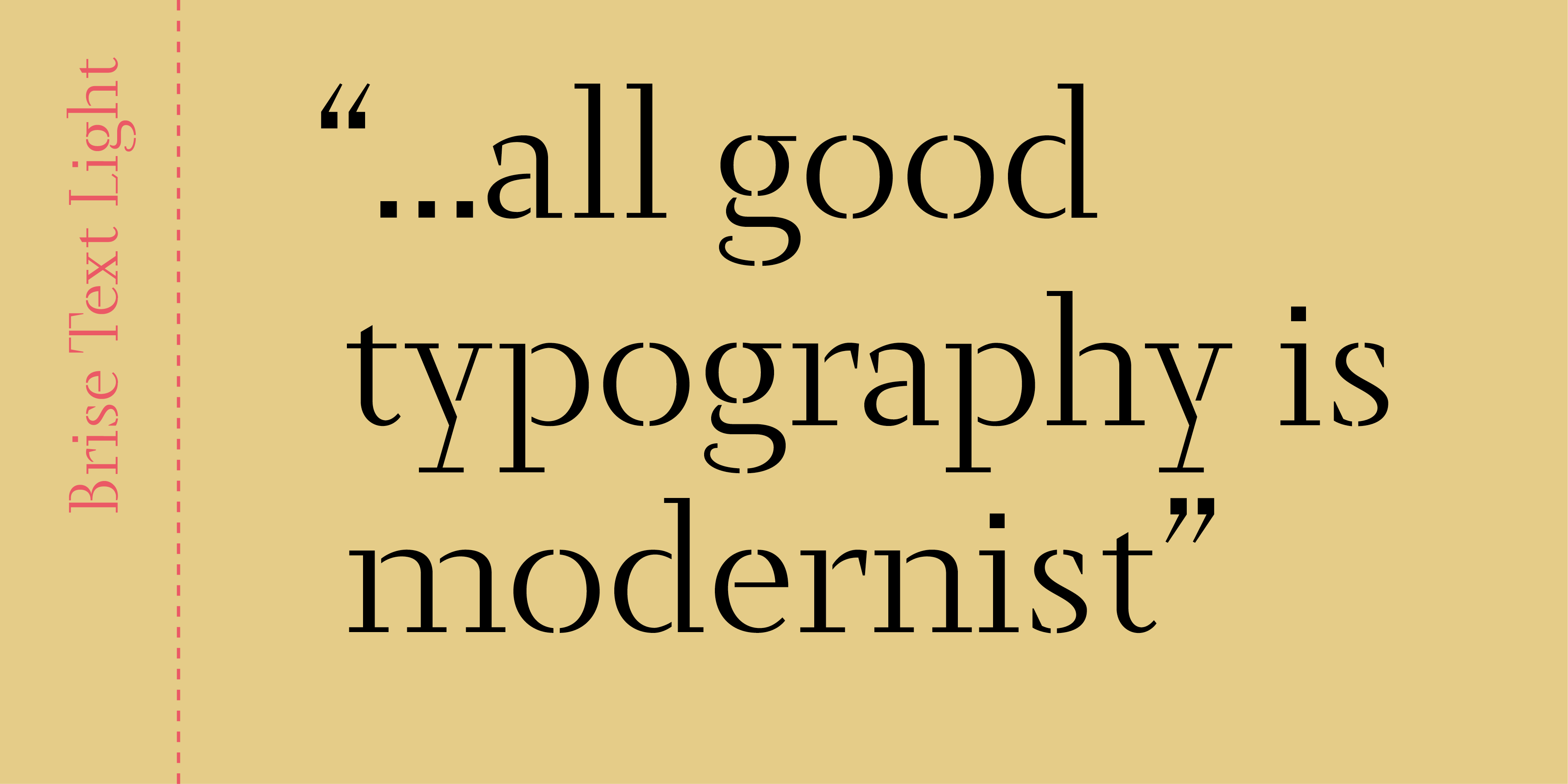
Author
Laura Meseguer
Creation
2025
Styles
6
Description
Brise is a stencil type family inspired by the interplay between air and structure. Like a breeze drifting through space, its forms are shaped by both presence and absence. Rooted in the architectural idea of the brise-soleil, Brise explores how deliberate gaps can give rhythm, clarity, and breath to type. The family started with three styles: Text Light, designed for subtlety and flow; Display Bold, more condensed and assertive; and Display Extreme, strong but still airy and more expressive. The styles Text Regular and Display ExtraBold were added to expand its usability.
Stencil and breeze share a paradox: the play between the visible and the invisible. A stencil is defined as much by its strokes as by the voids that interrupt them. These gaps are not losses but intentions—precise pauses that give the structure its rhythm, its balance between weight and air. Born from necessity, stencil type has moved beyond the realm of industry and function; today, it can also be expressive.
As a Variable Font, Brise explores the weight extremes, from Light to Extreme, and from Text to Display uses. Brise also plays with the proportions interruption in the middle with a Display Bold Style that is Condensed, what creates new and unexpected fonts. As a Variable Font, Brise explores the weight contrast—from Light to Extreme—and transitions from text to display uses. A disruption appears in the middle in the form of a Condensed Display Bold style, introducing surprising and unexpected expressions within the family.